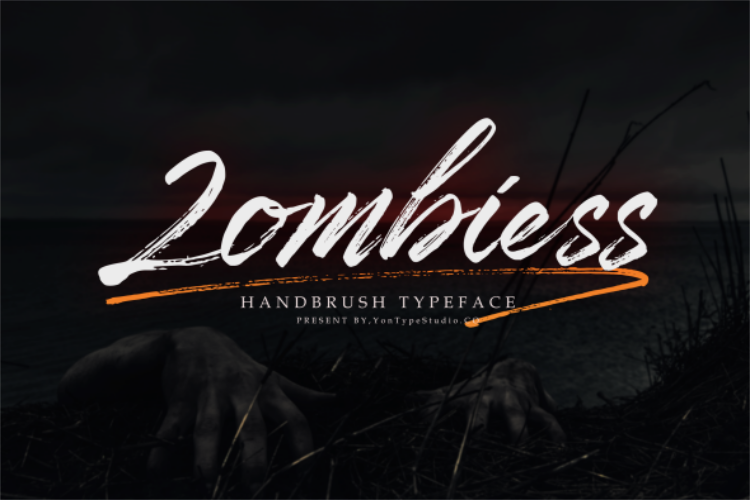
Zombiess Brush Font
Befonts introducing new hand brush font “Zombiess Font”. This is brushes font basic from brushpen, is UNIQUE and very powerfull. This font made with the perfect combining of each character. It looks original and can be used for all your project needs. Dapper rustic handwritten font with a personal charm. With quick-drying strokes and distinctive styles, It’s perfect for branding projects, household appliance designs, product packaging – or just as a style text overlay for any background image.